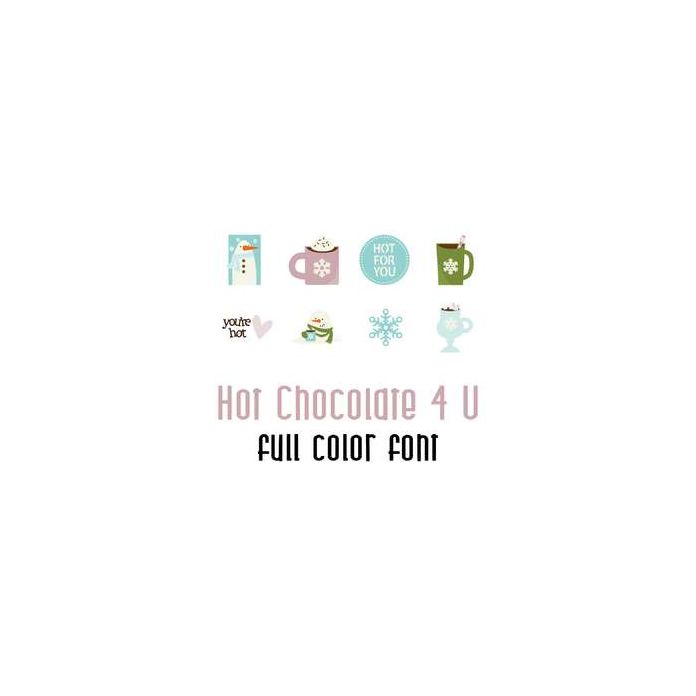
This adorable full color doodlebat font features cute hot chocolate imagery. Perfect for cards, crafts, gifts, decor, scrap book pages, planner stickers and more!